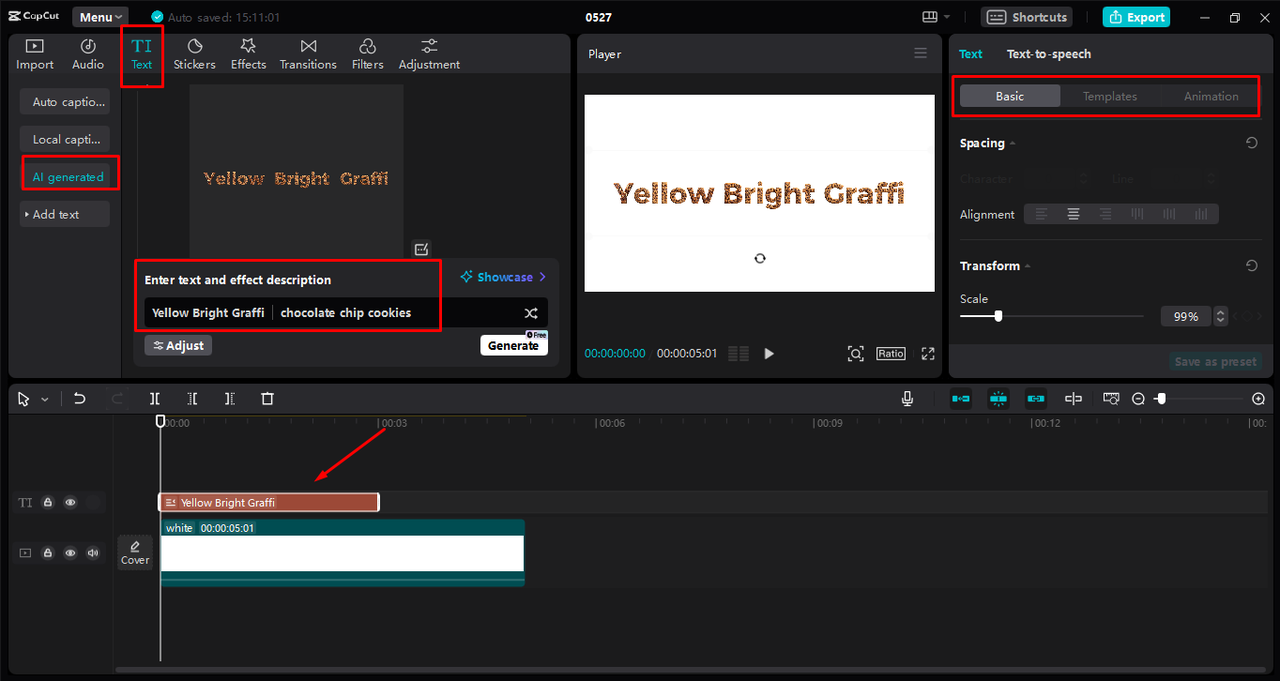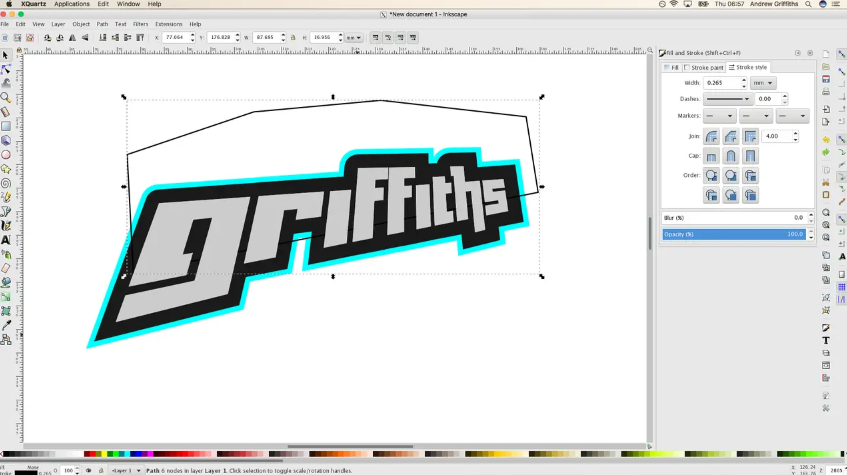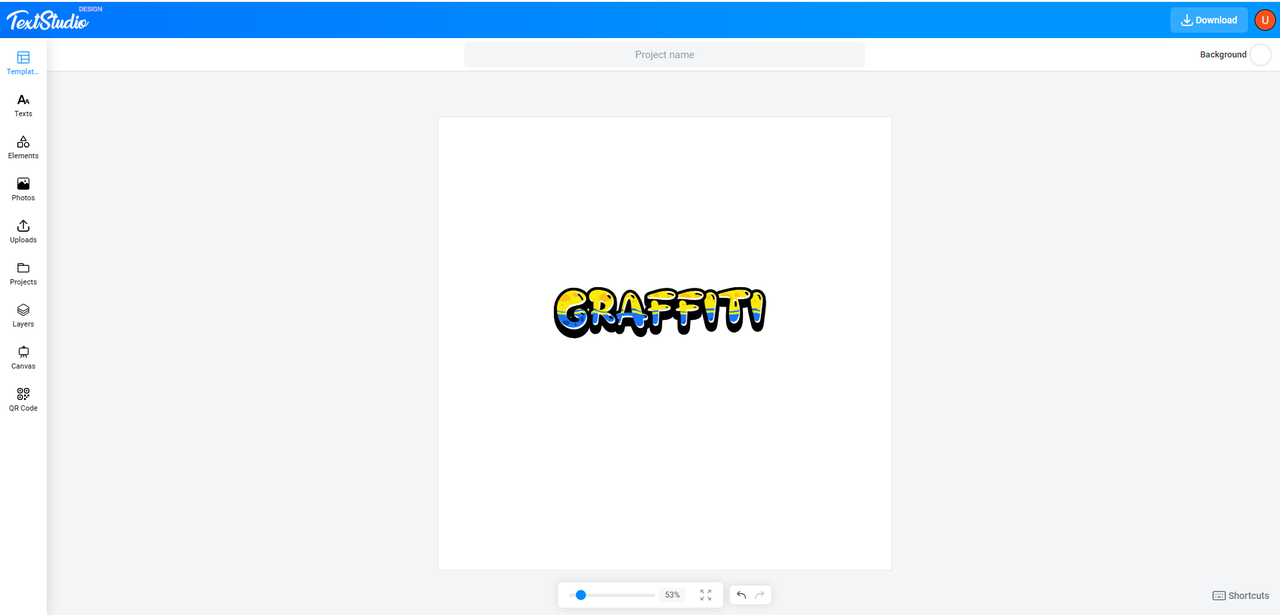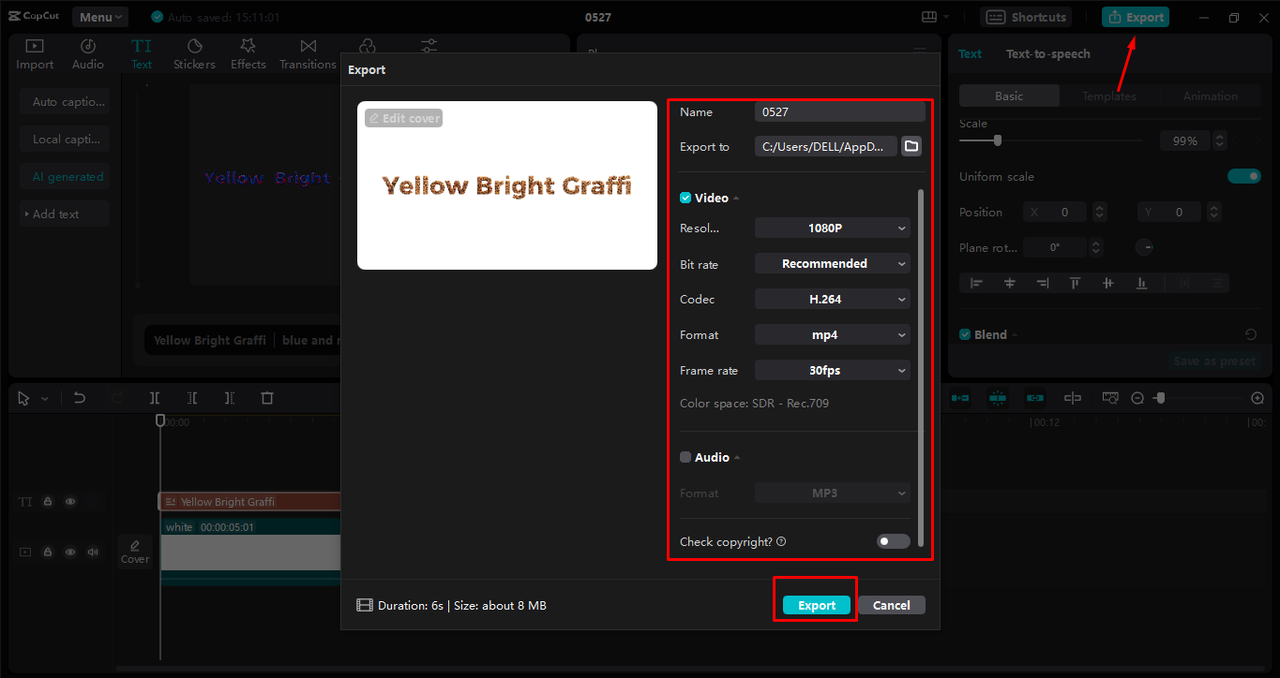
How to Create Graffiti Font Professionally: 3 Easy Ways
Discover a world of urban creativity with our guide on how to create graffiti fonts. Craft personalized designs and add an edgy vibe to your projects effortlessly.
Creating unique graffiti fonts can be an interesting yet exciting way to add a unique and urban flair to various projects. They cannot only be used in videos but can also increase your content appeal. This article explores how to create graffiti font that is perfect for anyone looking to enhance their graphic designs, advertisements, posters, or personal artwork.
Whether you're a professional designer or a hobbyist, this guide will walk you through the steps to create a graffiti font that stands out and captures the edgy, bold essence of graffiti art. Moreover, at the end of this article, you will be able to create your graffiti design that will make your text pop with personality.
When you create graffiti text, it's important to know the different styles you can use. Following are the 5 most popular graffiti designs that you can use to make your text more appealing:
1. Tagging
Tagging is the simplest and most basic form of graffiti. It involves writing a quick, stylized signature or nickname. This style is often created using a 3D graffiti letter creator.
1. Throw-Up (or Throwie)
A Throw-Up is a step up from tagging, featuring more complex letters and often filled with color. It's quick to produce and can be made using a graffiti text generator. Many artists also use text graffiti makers for this style.
1. Blockbuster
Blockbuster graffiti features large, blocky letters designed to cover maximum space quickly. This style is ideal for a graffiti-style generator. A 3D graffiti letter creator can help achieve bold, readable text that matches your design requirements
1. Wildstyle
Wildstyle is a complex and intricate form of graffiti with interlocking letters and designs. Creating this style often requires a professional graffiti writer generator. A graffiti word art generator is useful to get the details right.
1. Piece (or Masterpiece)
A Piece, or Masterpiece, is a highly detailed and colorful graffiti artwork that showcases the artist's skill and creativity. This style can be created using a 3D graffiti font generator for added depth and dimension.
How to create graffiti fonts: 3 methods
Creating graffiti fonts can be a fun and creative way to add a unique touch to your projects. Whether you're designing a poster, creating digital art, or just experimenting with a new style, knowing how to create graffiti fonts can help you achieve the edgy, bold look you want. Following are three methods to get you started with it:
Adobe Illustrator: Professional 3D graffiti font generator
Adobe Illustrator is a powerful tool that professionals widely use for creating detailed and high-quality graphic designs. It features a 3D graffiti font generator that allows you to add depth and dimension to your graffiti text, making it pop off the page. Moreover, with its extensive range of tools and effects, it is ideal if you want to create intricate and vibrant graffiti fonts that stand out in any project.
How to create graffiti text with Adobe Illustrator?
Following are some simple steps that you can follow to create graffiti text with Adobe Illustrator:
1. Open Adobe Illustrator and create a new document.
3. Select the text tool and type your desired text.
4. 3
5. Choose a bold font that suits your graffiti style.
6. 4
7. Apply 3D Effects by navigating to Effects > 3D > Extrude & Bevel to give your text depth.
8. 5
9. Customize colors and details using the various tools and palettes to finalize your graffiti art.
Interface of Adobe Illustrator showing tools that can be used to create graffiti font
Inkscape: Open-source graffiti styles generator
Inkscape is free, open-source vector graphic software perfect for creating custom graffiti fonts. It serves as an excellent graffiti-style generator with a variety of tools that allow you to design detailed and unique graffiti text. Inkscape's accessibility and robust feature set make it a great choice if you want to create professional-quality graffiti without spending money on software.
How to create graffiti text with Inkscape
If you want your graffiti text to stand out, follow the below-listed steps to make it with Inkscape
1
1. Download and install Inkscape from the official website.
2. 2
3. Open Inkscape and create a new file.
4. 3
5. Use the text tool to type your graffiti text.
1. How to create graffiti fonts for print?
Creating graffiti fonts for print is straightforward. You can start by designing your graffiti font digitally using software like Adobe Illustrator or Inkscape. Once you've finalized your design, you can export it as a vector file, such as an EPS or SVG, which ensures high quality and scalability for printing. After exporting, you can then use the graffiti font in your print projects, whether it's for posters, flyers, or other materials. However, for video content, the CapCut desktop video editor stands out as the best AI graffiti text generator.